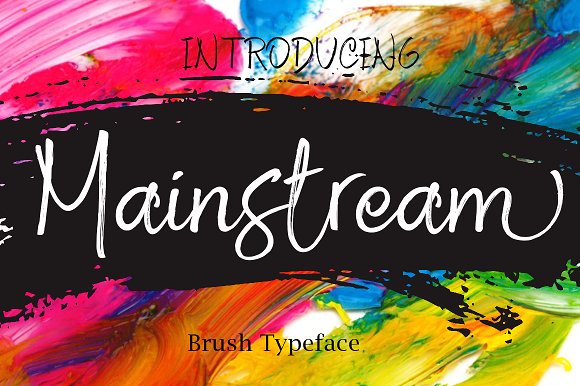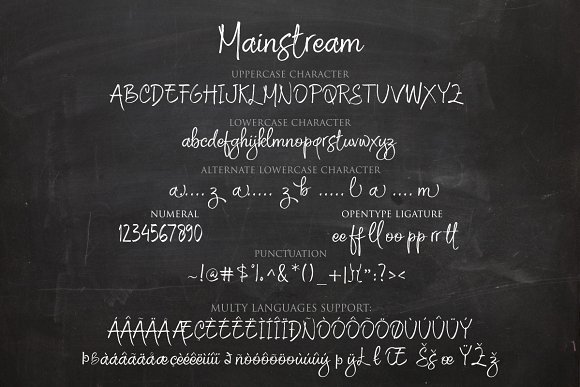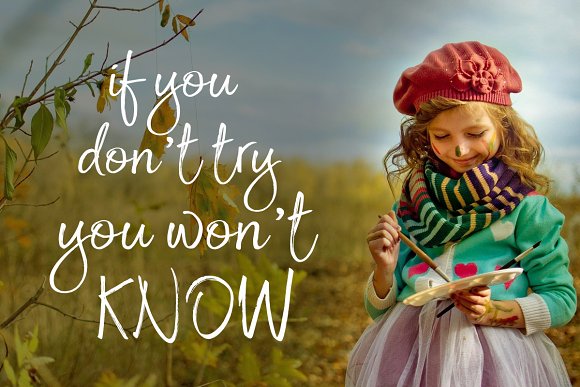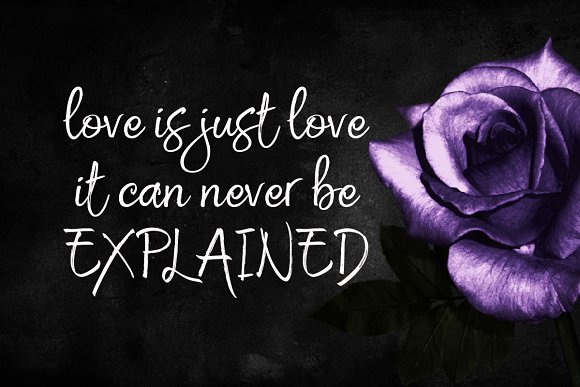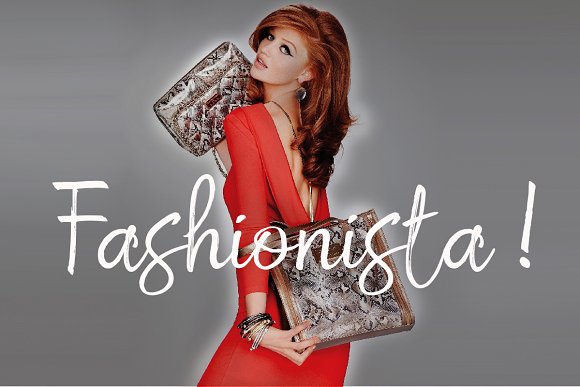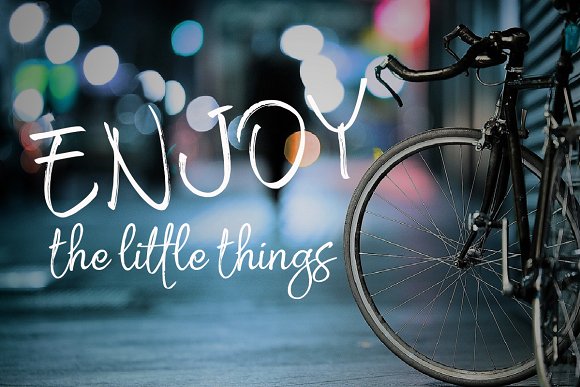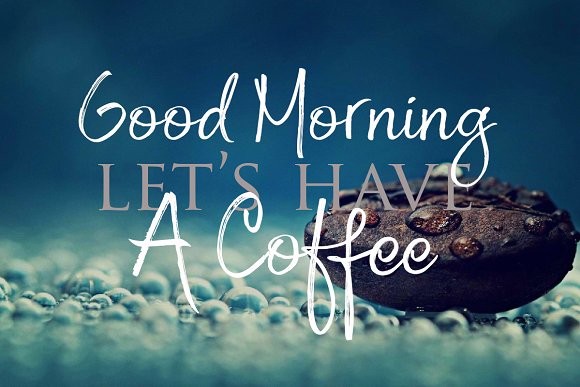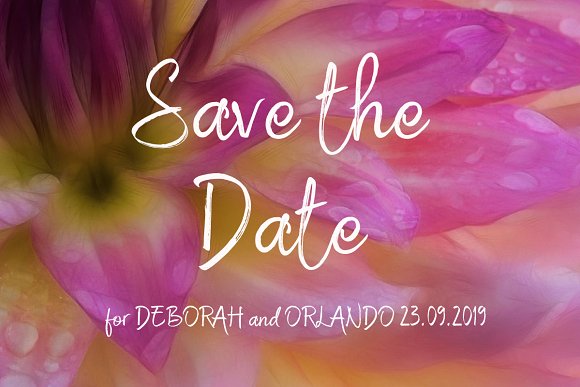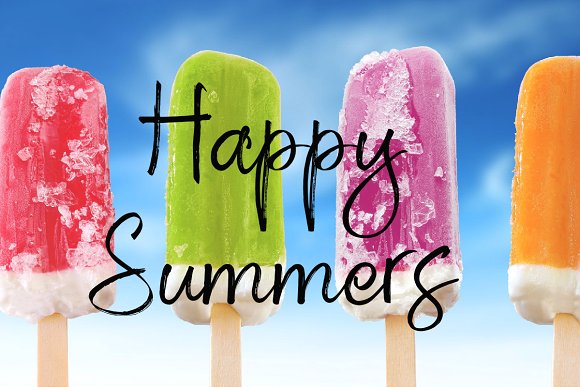
HomeScript FontsMainstream Font Script Fonts Mainstream Font FacebookXPinterestWhatsApp Mainstream Font Poster 2 Mainstream Font Poster 3 Mainstream Font Poster 4 Mainstream Font Poster 5 Mainstream Font Poster 6 Mainstream Font Poster 7 Mainstream Font Poster 8 Mainstream Font Poster 9 About Mainstream Font Mainstream is a hand made brush font, created by Byuly Ayika. DOWNLOAD NOW People also explored Let the Sunshine Font Exwife Font Grilesthy Semi-Bold Font Malberg Font Human Silhouettes Nissa Kireina Font Honey Bee Font Ameliana Monogram Font Orphite Font 302 0 TagsMainstream Font Previous articleMisgaretha FontNext articleMagnificent Font LEAVE A REPLY Cancel reply Comment: Please enter your comment! Name:* Please enter your name here Email:* You have entered an incorrect email address! Please enter your email address here Website: Save my name, email, and website in this browser for the next time I comment. Personal Use Free Sunshine Tropical Font Personal Use Free Read more about this font Adriator Personal Use Free Read more about this font Gonestones Personal Use Free Read more about this font Mandara Personal Use Free Read more about this font BLOG 5 Fonts That Will Dominate Design Trends in 2026 5 Fonts for 2026 That Will Dominate Design Trends Typography plays a critical role in visual communication, and as we look ahead to 2026, it’s... Modern Sans-Serif Fonts That Brands Love in 2025 Exploring Font Trends To increase your work productivity, choose the most readable fonts.